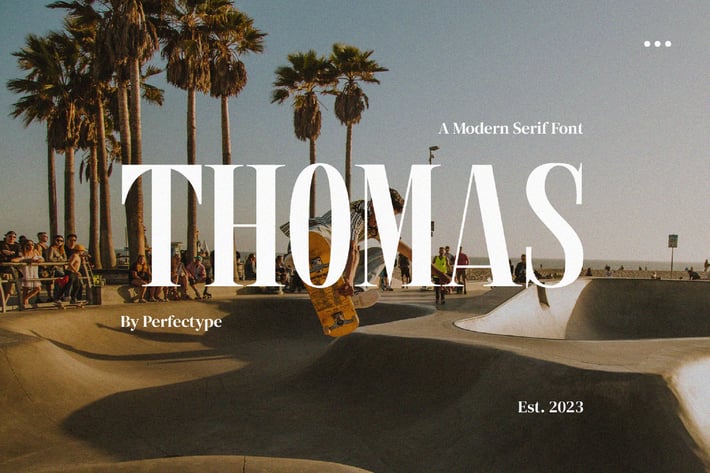
Thomas Elegant Serif Font Typeface
Thomas Elegant Serif Font Typeface inspired by the famous minimalist logo perfect for the purposes of designing templates, brochures, videos, advertising branding, logos, invitation, layout design, elegant crafting, beauty design and other